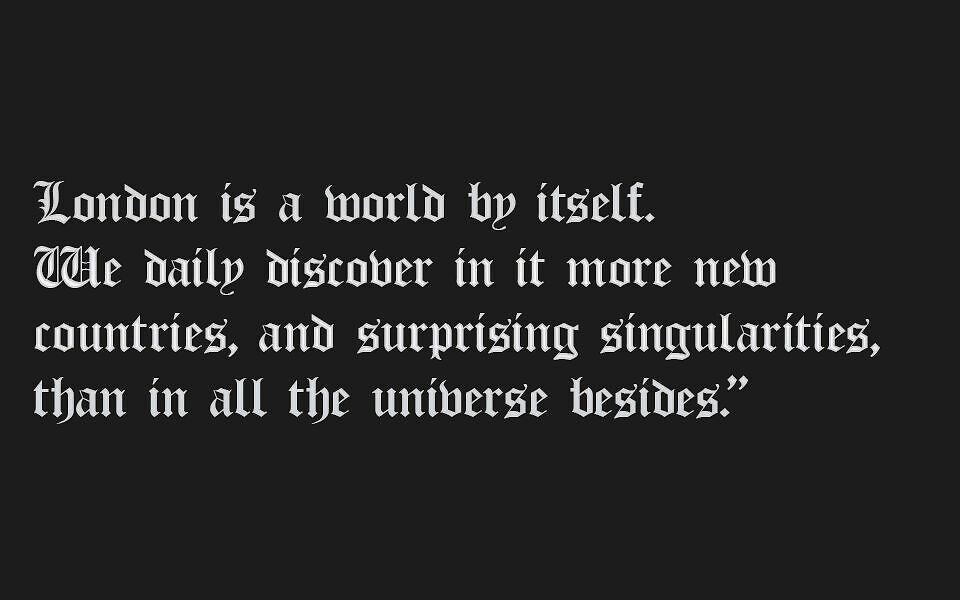
The Old London font, crafted by Dieter Steffmann, is a stunning Blackletter typeface reflecting medieval Gothic typography. With its intricate, angular letterforms and sharp flourishes, it evokes the historical charm of old London, fitting its name perfectly.
It offers Regular and Alternate weights, 217 characters, and multi-language support in TrueType and OpenType formats. Popular in the 1940s-50s for headlines, it’s now widely used for logos, book covers, and branding.